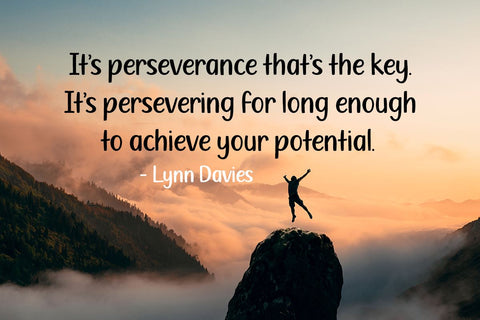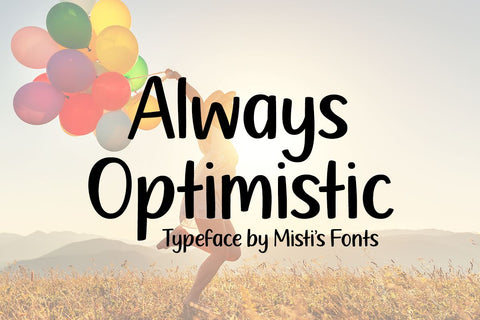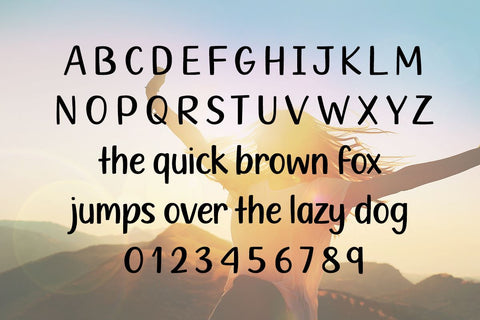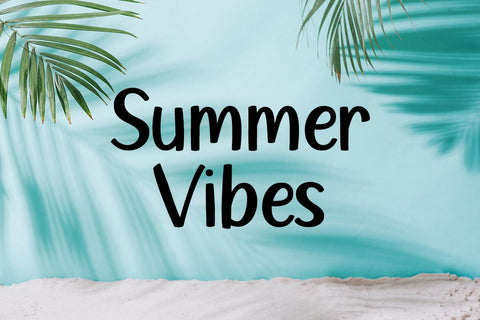
Always Optimistic
Always Optimistic is a bold handwritten font that exudes positivity and confidence with every stroke. This unique typeface captures the essence of a lively, upbeat spirit, making it perfect for projects that need a touch of personal flair and heartfelt emotion. The thick, assertive lines of Always Optimistic create a sense of stability and reliability, while the handcrafted appearance adds a warm, human touch that resonates deeply with readers.
- Misti's Fonts ,